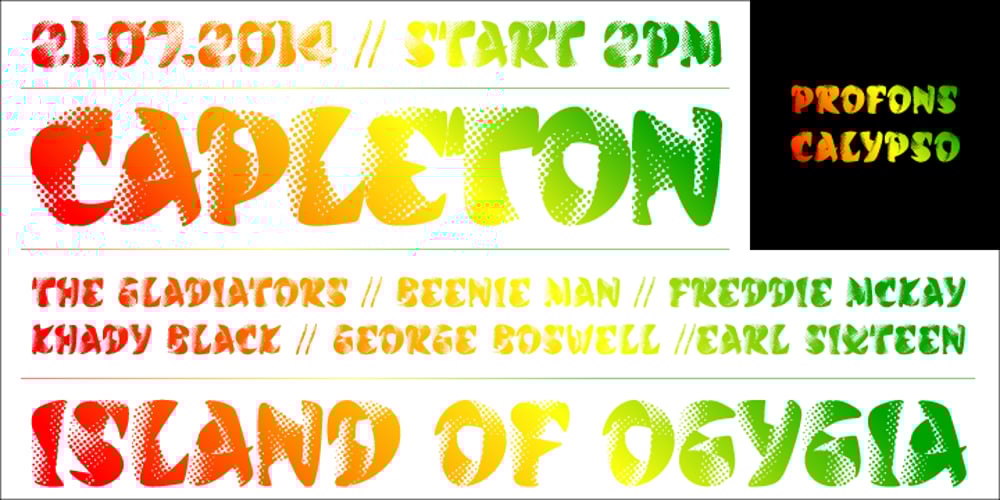
Calypso Font Family was designed by Roger Excoffon, Ralph M. Unger and published by profonts. Calypso contains 1 styles and family package options. Calypso was originally designed by the French designer Roger Excoffon in 1958 for Fonderie Olive. The fascination of Calypso is its pattern effect paired with 3D optic. His typefaces (e.g. Antique Olive, Banco, Mistral) gave voice to an exuberant body of contemporary French and European graphic design at that time.